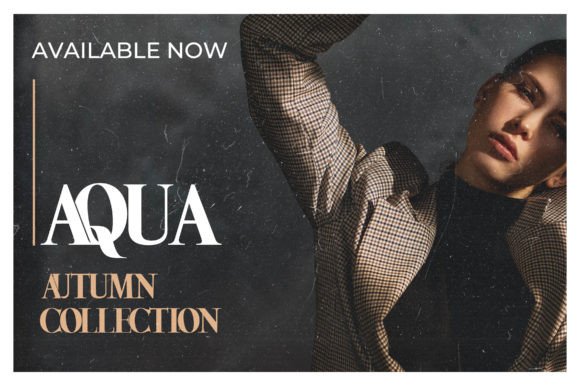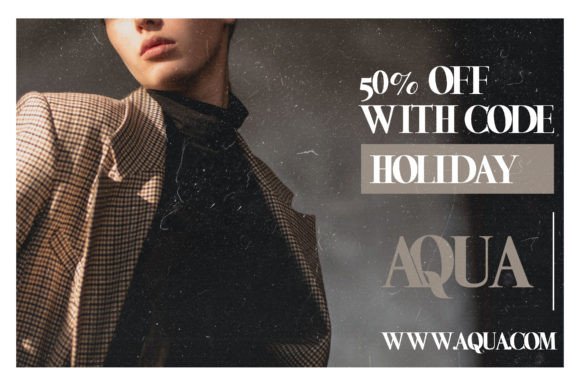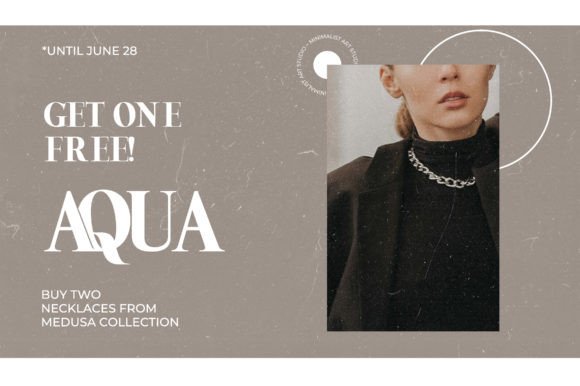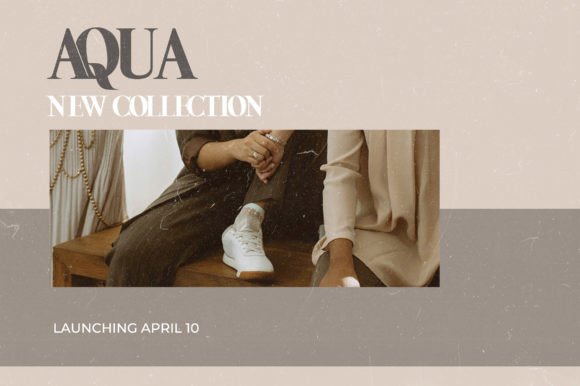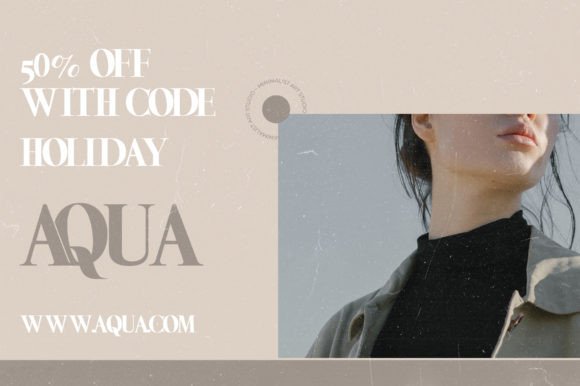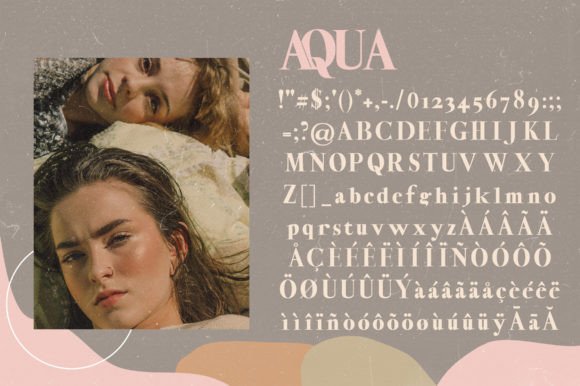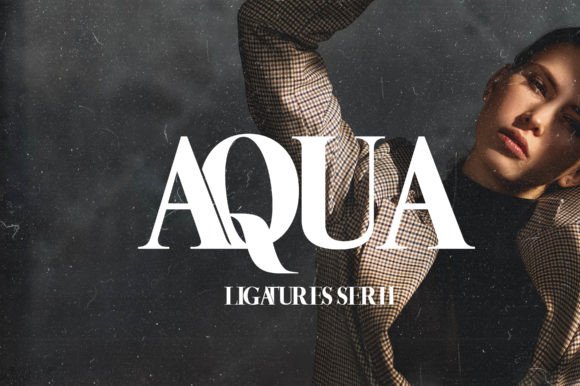
Aqua Font: Elevate Your Design with Elegance and Sophistication
In the world of typography, a font can make or break a design. When it comes to creating a lasting impression, the right font choice is crucial. Introducing Aqua Font, an elegant, minimalistic, and clean serif typeface that is sure to take your designs to the next level. With its amazing glyphs construction, Aqua Font is a vital choice for creative projects that require a classy, minimalist look.
The Characteristics of Aqua Font
Aqua Font boasts a unique and sophisticated design, making it perfect for a wide range of applications. Its key characteristics include:
- Elegant and Minimalistic Design: Aqua Font features a clean and simple design, making it ideal for designs that require a touch of elegance and sophistication.
- Serif Typeface: The font’s serif design adds a touch of classic sophistication, making it perfect for designs that require a sense of tradition and heritage.
- Amazing Glyphs Construction: Aqua Font’s glyphs construction is truly exceptional, providing a wide range of design possibilities.
Use Cases for Aqua Font
Aqua Font’s versatility makes it suitable for a wide range of design projects, including:
- Packaging Design: Add a touch of elegance to your product packaging with Aqua Font. Its clean and simple design makes it perfect for showcasing your brand’s personality.
- Greeting Cards and Invitations: Create beautiful and sophisticated greeting cards and invitations with Aqua Font. Its serif design adds a touch of classic elegance, making it perfect for special occasions.
- Cosmetics Branding: Elevate your cosmetics brand with Aqua Font’s elegant and sophisticated design. Its clean lines and simple design make it perfect for creating a luxurious brand image.
- Stationery and Print Materials: Use Aqua Font to create beautiful and elegant stationery and print materials, such as brochures, flyers, and business cards.
Why Choose Aqua Font?
With so many fonts available, why choose Aqua Font? Here are just a few reasons:
- Unique and Sophisticated Design: Aqua Font’s elegant and minimalistic design sets it apart from other fonts, making it perfect for designs that require a touch of sophistication.
- Versatility: Aqua Font’s versatility makes it suitable for a wide range of design projects, from packaging design to cosmetics branding.
- Easy to Read: Aqua Font’s clean and simple design makes it easy to read, even at small font sizes.
Tips for Using Aqua Font
To get the most out of Aqua Font, here are a few tips:
- Use it as a Headline Font: Aqua Font’s elegant and sophisticated design makes it perfect for use as a headline font.
- Pair it with Other Fonts: Experiment with pairing Aqua Font with other fonts to create a unique and interesting design.
- Use it in Large Font Sizes: Aqua Font’s clean and simple design makes it perfect for use in large font sizes, such as billboards and signage.
In conclusion, Aqua Font is a versatile and elegant serif typeface that is perfect for designs that require a touch of sophistication and elegance. Its amazing glyphs construction and clean lines make it a vital choice for creative projects. With its wide range of use cases and ease of use, Aqua Font is a must-have font for designers and crafters.